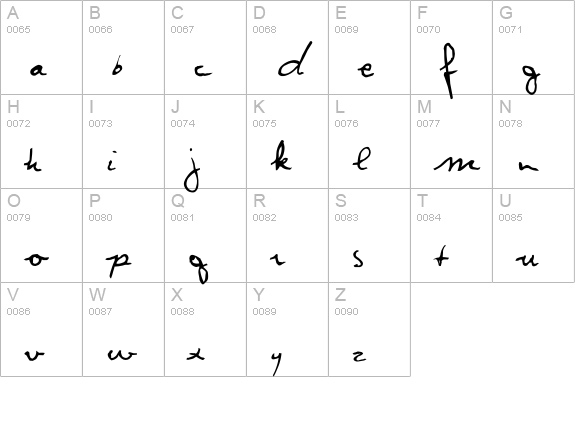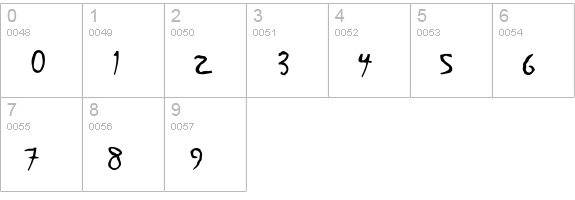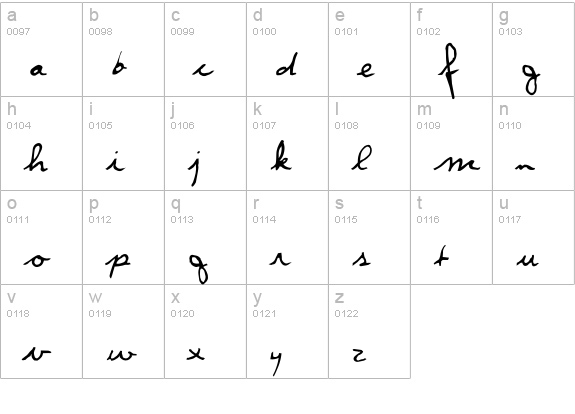
ThirtyEight Font Details
Introducing ThirtyEight, a captivating and versatile font that effortlessly combines modern elegance with a touch of vintage charm. This font captures the essence of sophistication and creativity, making it the perfect choice for a wide range of design projects. With its clean lines and balanced proportions, ThirtyEight exudes a sense of professionalism and refinement. Its sleek and stylish appearance is complemented by subtle details that add character and uniqueness to each letterform. Whether used for headlines, logos, or body text, this font will make a bold statement while maintaining readability and clarity. What sets ThirtyEight apart is not only its stunning visual appeal, but also its accessibility. This font is freely available to download at FontsMarket.com, making it easily accessible to designers, artists, and creatives worldwide. Its availability at no cost allows for unlimited creative possibilities, whether you're working on personal or commercial projects. Embrace the power of ThirtyEight and elevate your designs to new heights. Its versatility and timeless appeal make it a true gem in any designer's toolkit. Download ThirtyEight today from FontsMarket.com and unlock a world of design possibilities that are as limitless as your imagination.